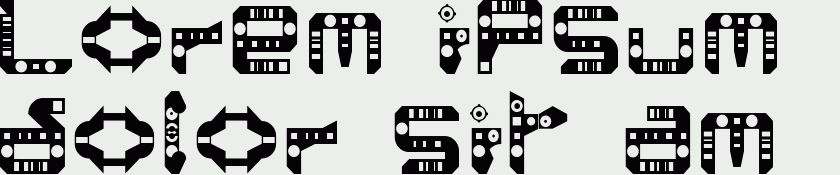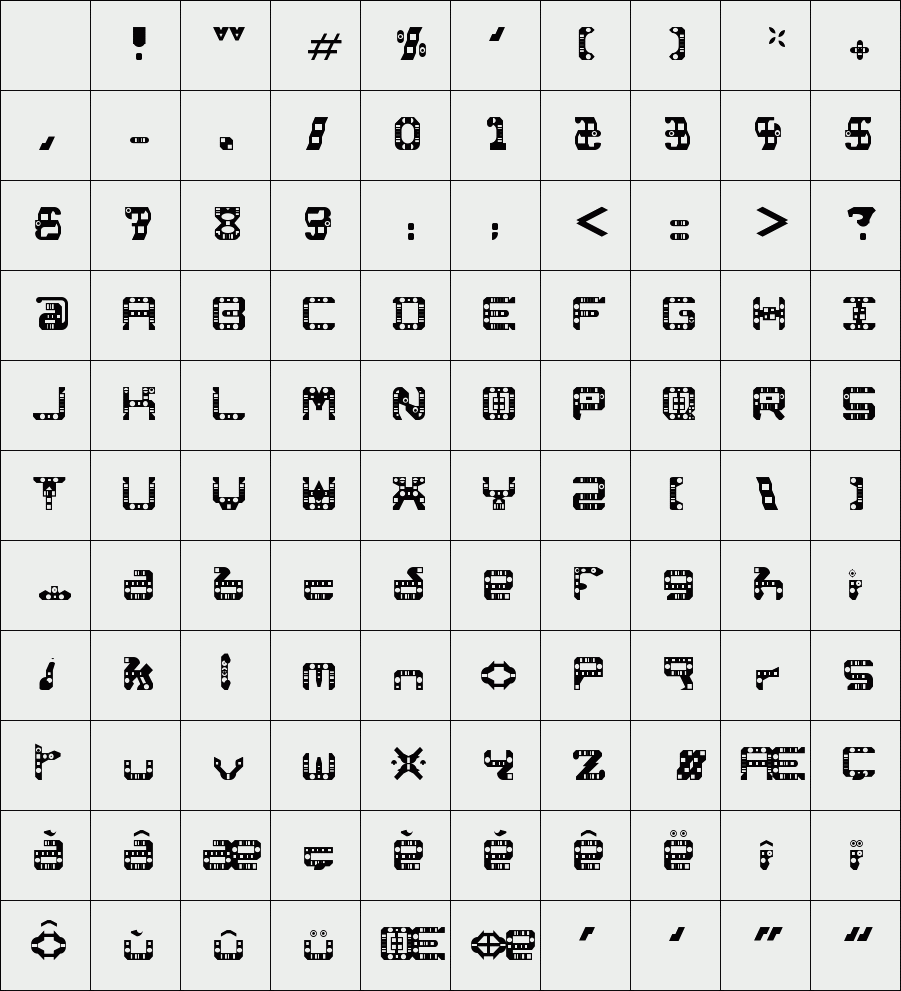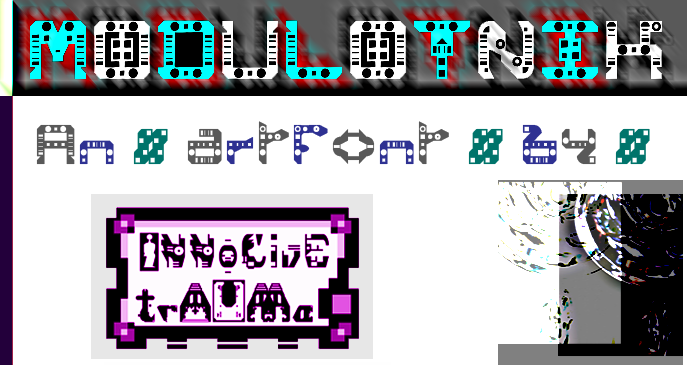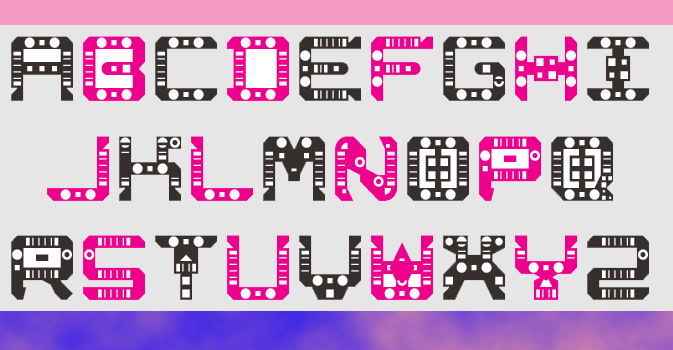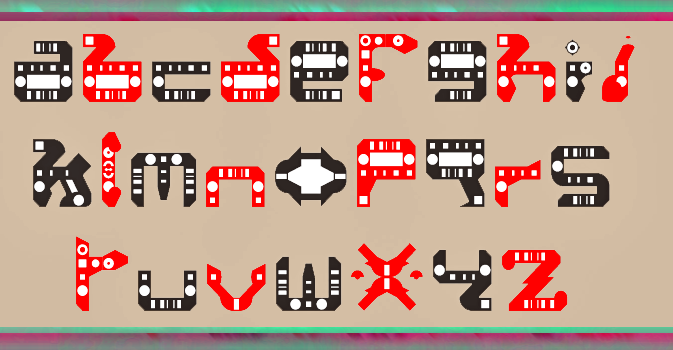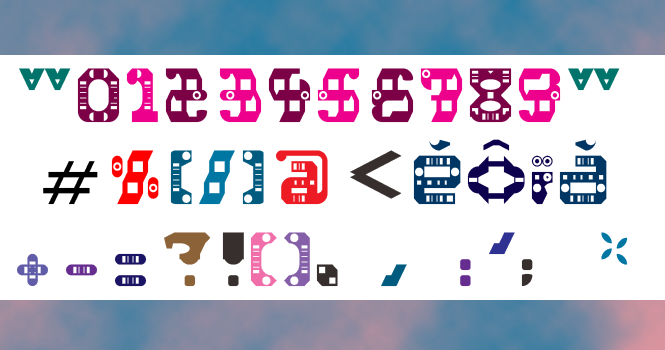
trAUMa 97 / Modulotnik
"Modulotnik", like all the "trAUMa" series, works at the frontier between Art & Type Design, Figuration & Abstraction, each font is a comprehensive world in which every glyph is a "living" entity. But put together they can produce your messages in the most accurate way.